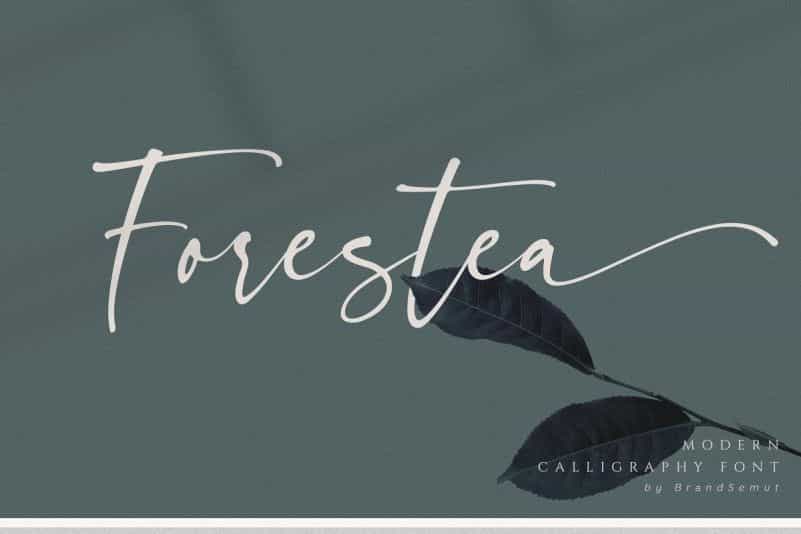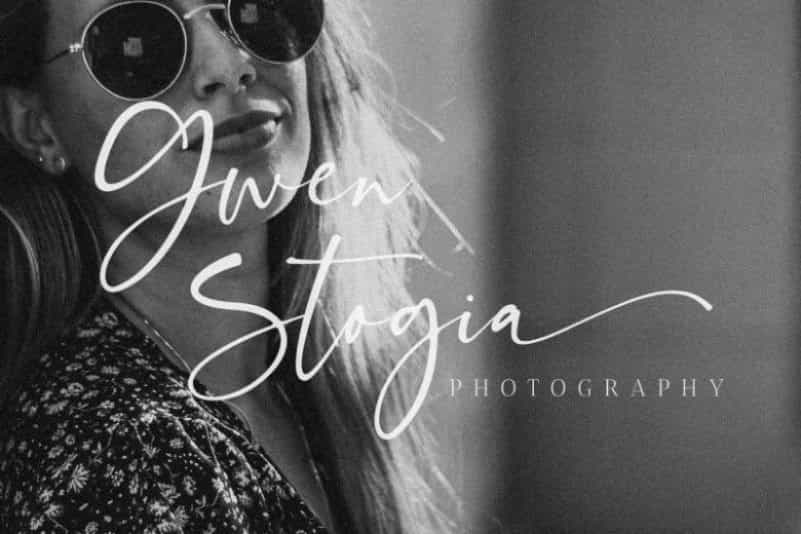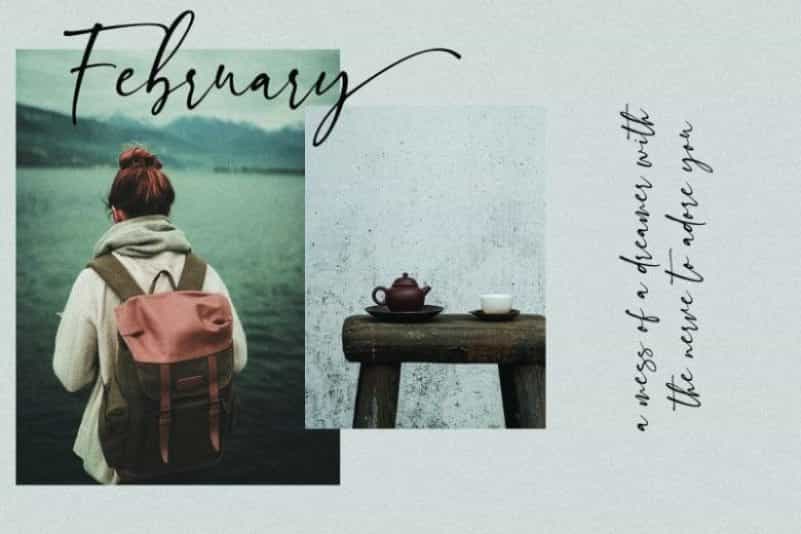
Meet Forestea Font, the modern script that will make you feel like in a luxury. This font is available in both uppercase and lowercase letters, punctuations, symbols & numerals as well as with stylistic set alternate and ligatures. It also supports multilingual texts.